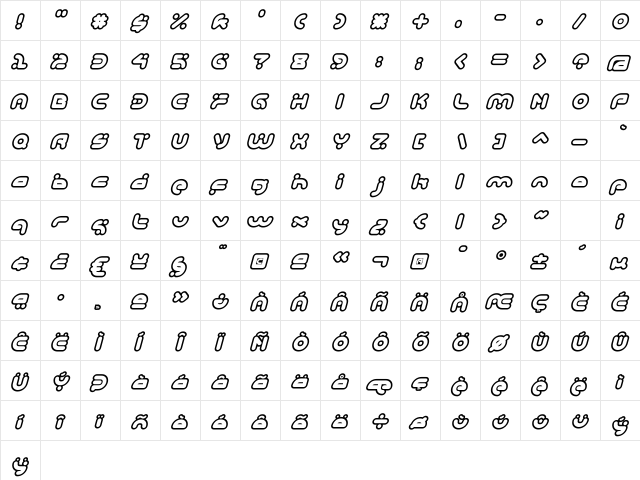
DeliciousOutline Oblique Regular Font Preview
DeliciousOutline Oblique Regular
Design Context for DeliciousOutline Oblique Typeface
DeliciousOutline Oblique is built around its visual character rather than neutral utility — its distinctive forms are designed to make an impression at display sizes. The slanted form adds forward momentum and visual energy.
Font Pairing: Pair with a clean neutral sans-serif for body copy to let DeliciousOutline Oblique's character lead without overwhelming the composition.
Pro Tip: Treat DeliciousOutline Oblique as the centrepiece of your typographic hierarchy. One strong heading set in a decorative face can carry an entire layout.